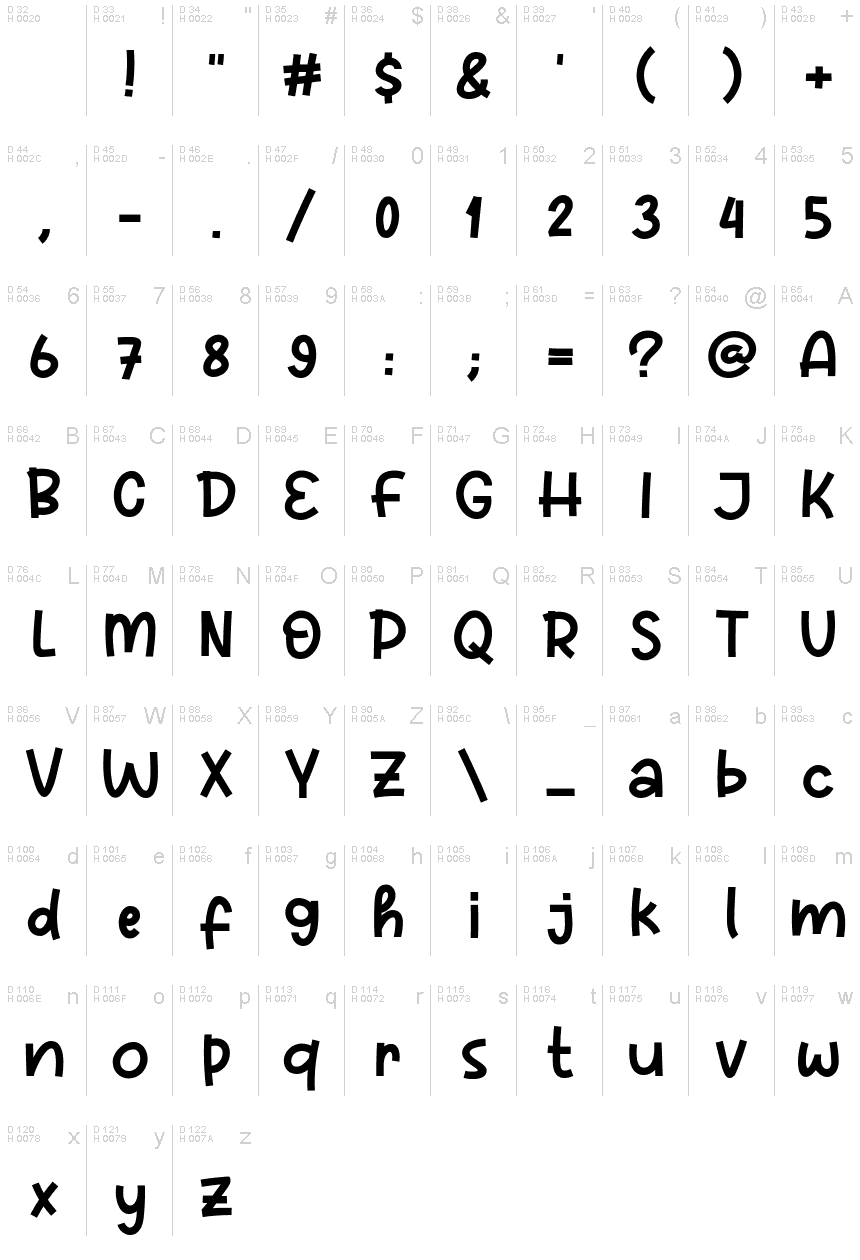
Cheese Smile
Cheese Smile is a unique display font created by Khurasan & Jalembe. Its comic style is perfect for adding a touch of fun and creativity to any project. From bold poster designs to playful logos, Cheese Smile will help you make an eye-catching impact. This distinct font is also the ideal choice for retro-inspired designs, cartoons, and children's books. Let your imagination run wild with Cheese Smile!